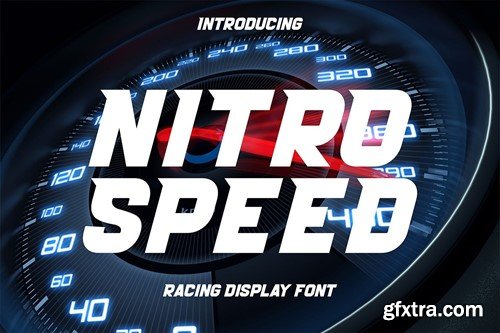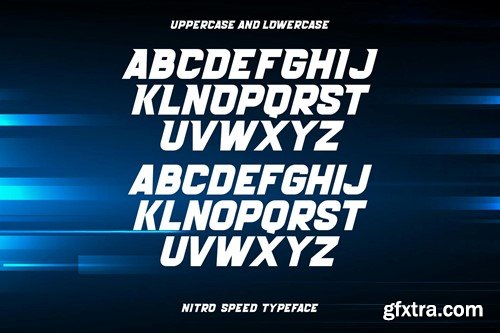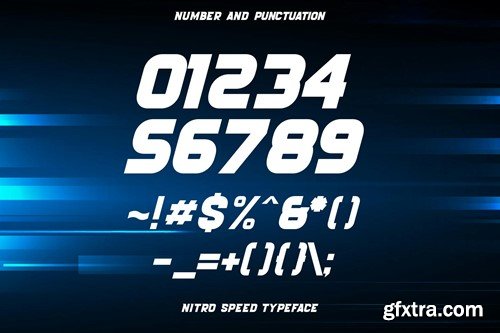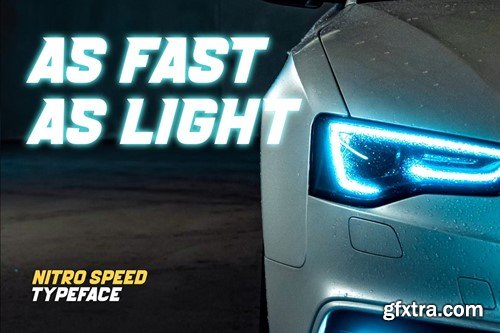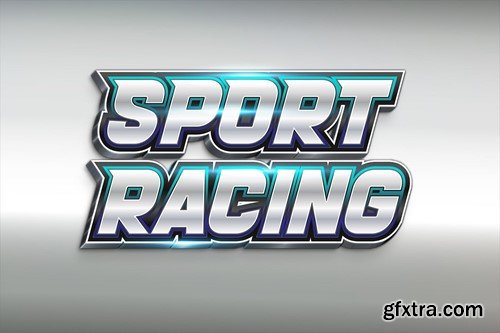
Nitro Speed - 汽车比赛显示字体 J53YCPK
Nitro Speed - Racing Display Font J53YCPK
Nitro Speed - Racing Display Font
Nitro Speed is a racing font that is ideal for various applications that want to emphasize speed, power, and competitive spirit.